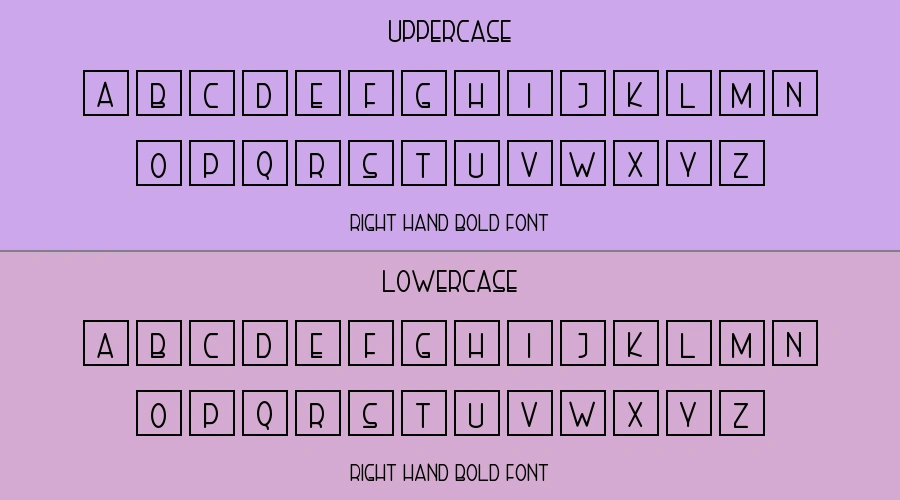
About Right Hand Bold Font
Right Hand Bold Font stands out for its distinctive combination of rhythmic patterns and emotional appeal. Ideal for medical texts, it provides the expressiveness and artistic merit that professional projects demand. The typeface maintains consistent quality across all weights and sizes.
Key features include refined structural clarity and practical tabular figures, enhancing typographic expression. In social media assets applications, Right Hand Bold Font demonstrates exceptional file efficiency. The ascender height and brand personality contribute to its distinctive character and professional appeal.